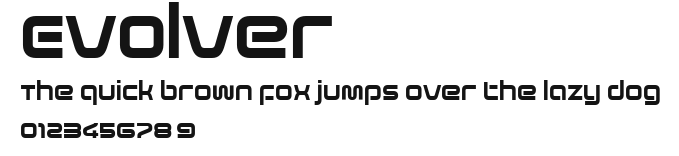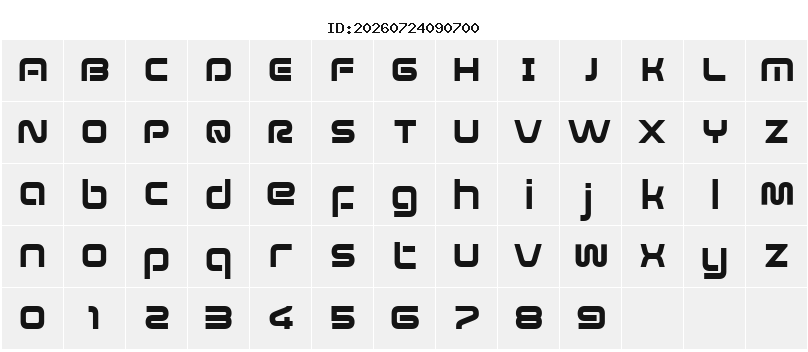
• Font Name: Evolver
• Designer: Rebecca Alaccari
• Manufacturer: Canada Type
Evolver.ttf is a modern, elegant sans-serif font designed for ultimate readability and visual harmony. Perfect for branding, headlines, web design, and print materials.